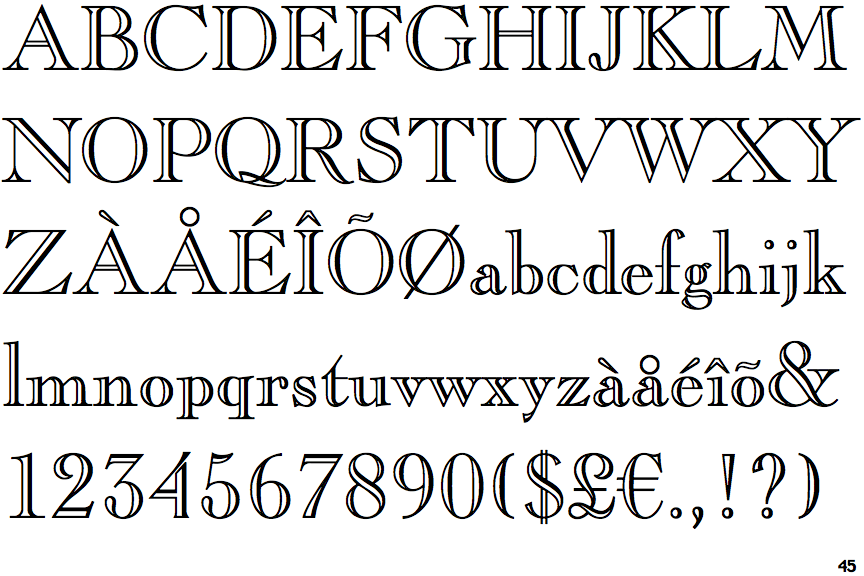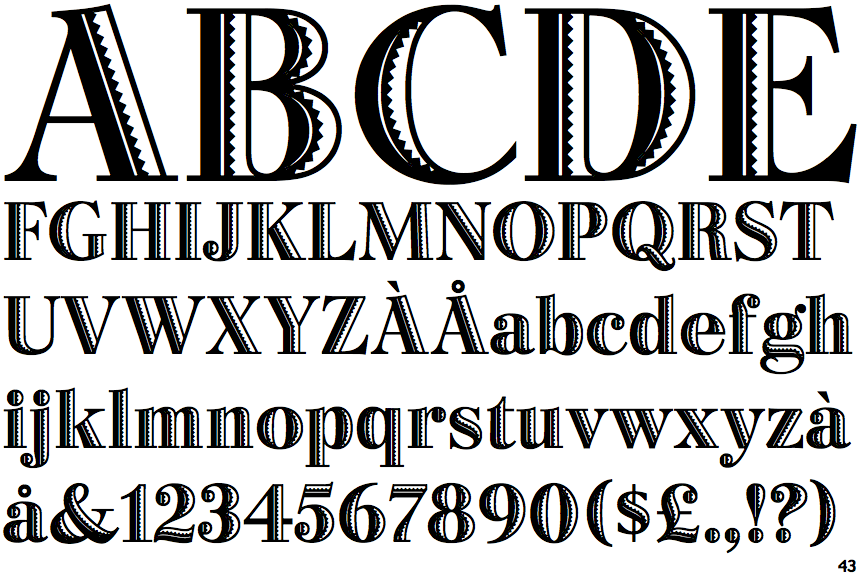
Review Of Open Face Fonts References
Review Of Open Face Fonts References. What is the cloister open face font? In doubt please refer to the.
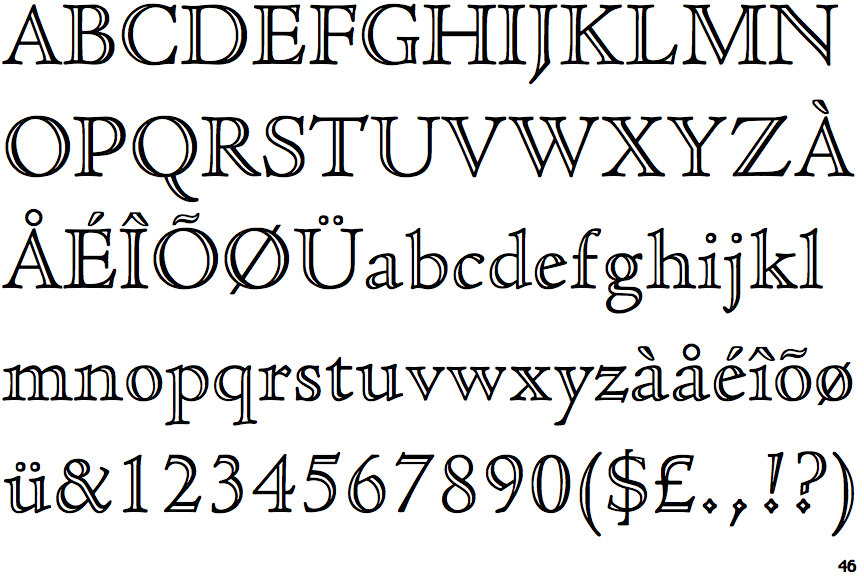
Whatthefont whatthefont forum whatthefont mobile learn. What is the cloister open face font? Caslon open face font family was designed by william caslon, american type founders and published by monotype.
Looking For Open Face Fonts?
In Caslon Open Face, The
Easy Open Face Is A Fancy, Decorative Font Designed By Intellecta Design.
Cloister open face was designed in 1929 by morris fuller benton as one weight of the cloister old style family. The font is only for commercial purposes only and you must be purchased. 32 professional openface fonts to download.